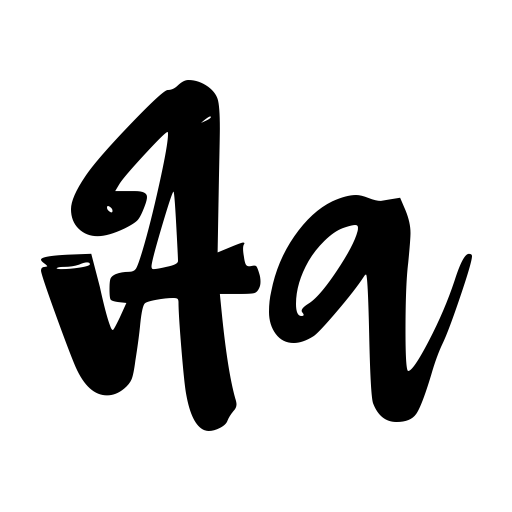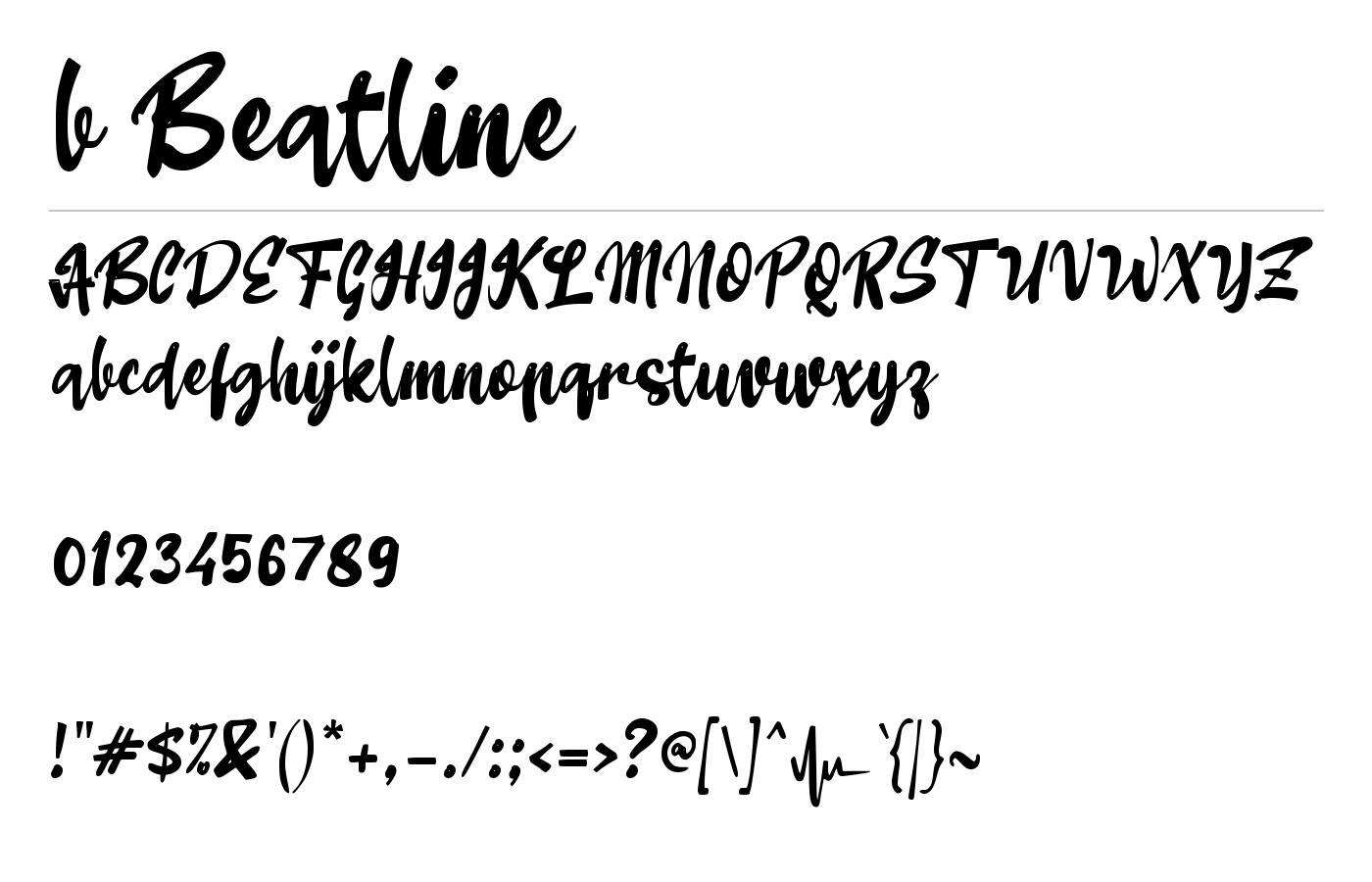
Beatline is a lively script font with a bold, brushstroke style that conveys energy and personality. Its slightly irregular strokes and casual flow give it a handcrafted, artistic feel, making it perfect for creative branding, posters, and packaging that want to express a fun and dynamic vibe. This font works best in display settings where its expressive character can stand out and engage.
b Beatline Font
About b Beatline Font